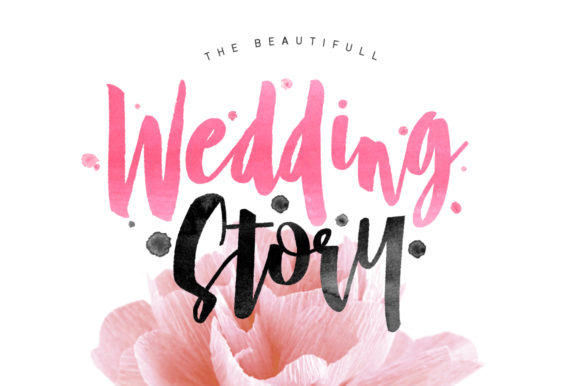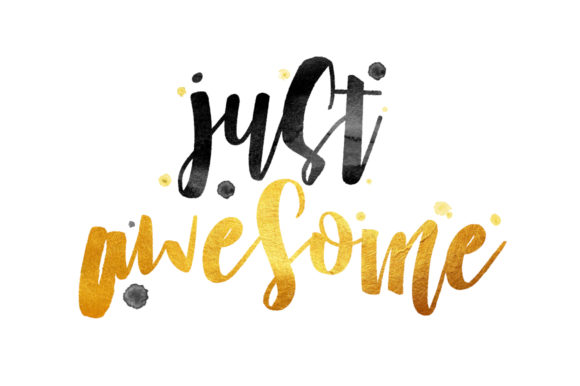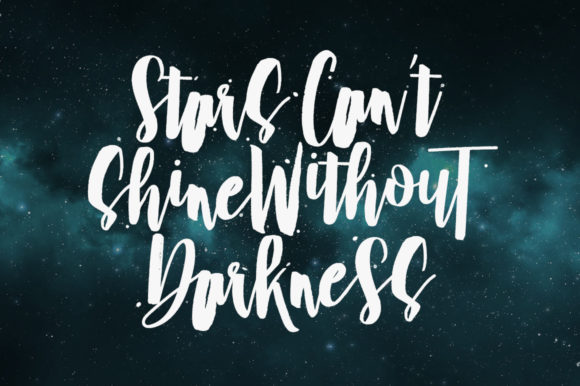
Introduction to Sandia Font
As a designer, you know that sometimes the perfect font can make all the difference between a good design and a great one. I recall the moment when I stumbled upon the perfect handwritten font for a client’s logo – it was like magic. The font I had been searching for was none other than the beautiful Sandia Font.
Sandia Font is a unique, high-quality, and free download that can elevate your creative project to the next level. Its relaxed, brushed handwritten style makes it perfect for creating eye-catching logos, branding, and quotes. With its transparent background and beautiful lettering, this font is a valuable resource for designers who want to add a personal touch to their designs.
Key Features of Sandia Font
- High-quality design: This font features a unique and modern design, perfect for adding a touch of elegance to any creative project.
- Transparent background: The Sandia Font has a transparent background, allowing for seamless integration with any design or image.
- High-resolution design: The font is designed at a high resolution, making it ideal for use in large-scale designs or high-quality prints.
- Unique characteristics: The Sandia Font features a distinctive and stylish design, with a range of weights and styles to suit different creative projects.
Honest Review: Sandia Font
I recently had the chance to work with the Sandia Font, and I must say it’s been a game-changer for my creative projects. This free download is a high-quality addition to any design resource collection.
Here are some of the things that worked well for me: ✨
- Its clean and modern design makes it perfect for modern and minimalistic projects.
- The transparent background option gives me the flexibility to use it in a variety of creative ways.
- The font’s high quality means it looks great on any screen size or resolution.
However, there are a few limitations to keep in mind: ⚠️
- The font only comes in a limited number of weights, which might not be ideal for projects that require a lot of variation.
- It’s not as customizable as some other fonts I’ve worked with.
Overall, I’m really impressed with the Sandia Font. It’s a great addition to any design resource collection, and I’ve already used it in several of my recent projects. If you’re looking for a high-quality, free download to add some modern flair to your designs, I’d definitely recommend giving it a try.
How to Use Sandia Font
The Sandia Font is a high-quality design resource perfect for creative projects that require a unique and stylish touch. With its transparent background, this font is easily downloadable and can be used in a variety of applications.
Using the Sandia Font in Popular Design Software
Tips for Getting the Most Out of the Sandia Font
To get the most out of the Sandia Font, experiment with different font sizes, colors, and styles. You can also combine it with other design elements to create unique and eye-catching designs.
The Sandia Font is perfect for a variety of creative projects, including logos, graphics, and marketing materials. Its high-quality design makes it a great resource for professionals and hobbyists alike.
Alternatives to Sandia Font
Pacifico Font is a high-quality, elegant serif font suitable for creative projects requiring a touch of sophistication. It’s perfect for headings, titles, and body text in a magazine or brochure. Pacifico Font is available for free download and features a transparent background, making it ideal for overlaying on images.
Compared to Sandia Font, Pacifico has a more refined and luxurious feel, making it suitable for high-end branding and design projects. While Sandia Font is more playful, Pacifico Font exudes a sense of sophistication and elegance.
Great Vibes Font is a beautiful, hand-drawn script font perfect for creative projects requiring a personal touch. It’s ideal for headings, titles, and quotes in a wedding invitation or a travel brochure. Great Vibes Font is available for free download and features a transparent background, making it easy to overlay on images.